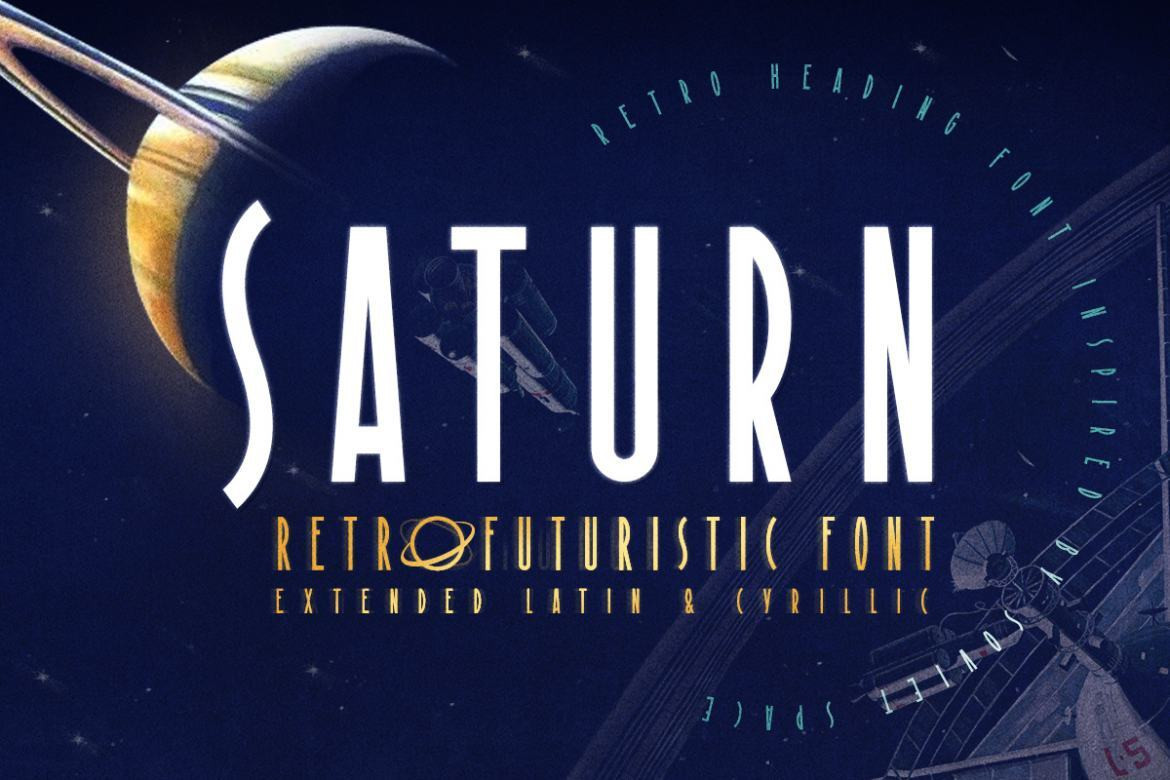
SATURN is a retro futuristic modern editorial font with vintage vibes, inspirated by Soviet sci-fi book's headers and posters.deeezy.com/product/26037/saturβ¦